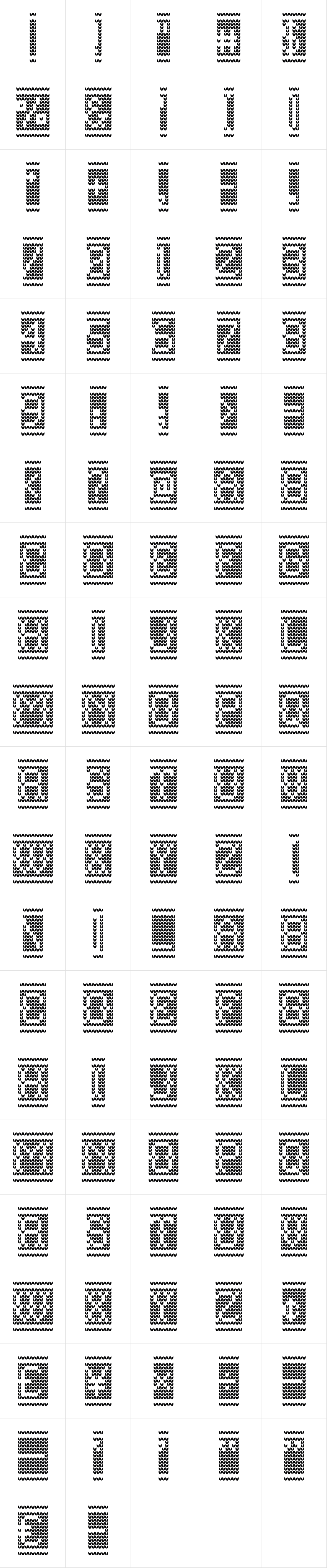
Frissell Decorative Shadow Font
- ‘Frissell’ is Cornershop’s ode to a hot roast Christmas lunch on a forty degree day, ‘Let It Snow’ blasting on repeat in department stores as you swelter through your Christmas shopping and Love Actually on the TV again. Frissell is inspired by knitted sweaters (jumpers) and Australian culture during the festive season. It is designed to be used as a layered font; with Regular and Shadow styles to create a knitted effect. Frissell comes in 4 styles; Regular, Shadow, Decorative-Regular and Decorative-Shadow. It has been designed with quirky icons, beach patterns and fair isle patterns; perfect for the festive season all over the world.